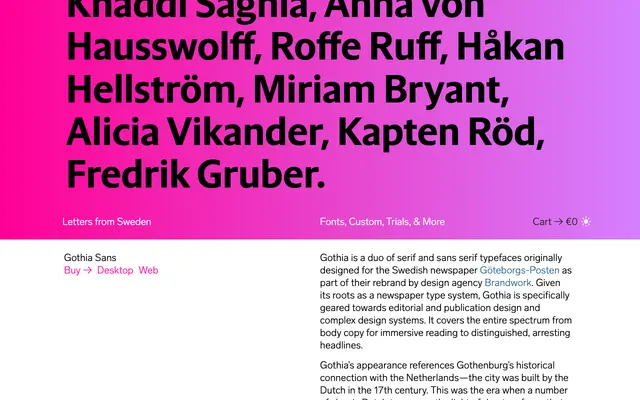
Gothia Sans
Letters from Sweden · Göran Söderström · 2019
Gothia Sans specimen from Letters from Sweden
A humanist sans designed for Göteborgs-Posten by Göran Söderström, drawing on Dutch Renaissance type traditions to serve both body copy and headline work in editorial contexts.
Originally commissioned for the redesign of Swedish newspaper Göteborgs-Posten by agency Brandwork, Gothia Sans takes its visual cues from Gothenburg's historical Dutch roots, referencing typefaces by Hendrik van den Keere and Christoffel van Dijck. Söderström gave the sans a smoother, more refined character than its serif counterpart, creating contrast within the Gothia system while maintaining the sharpness and reliability needed for dense editorial work. Three weights — Book, Bold and Black — cover the range from immersive long-form reading to commanding display settings.
Gothia Sans draws on Dutch Renaissance type models by Van den Keere and Van Dijck, blending their supple elegance with Scandinavian crispness — a humanist sans with clear historical serif roots and a refined editorial bearing.